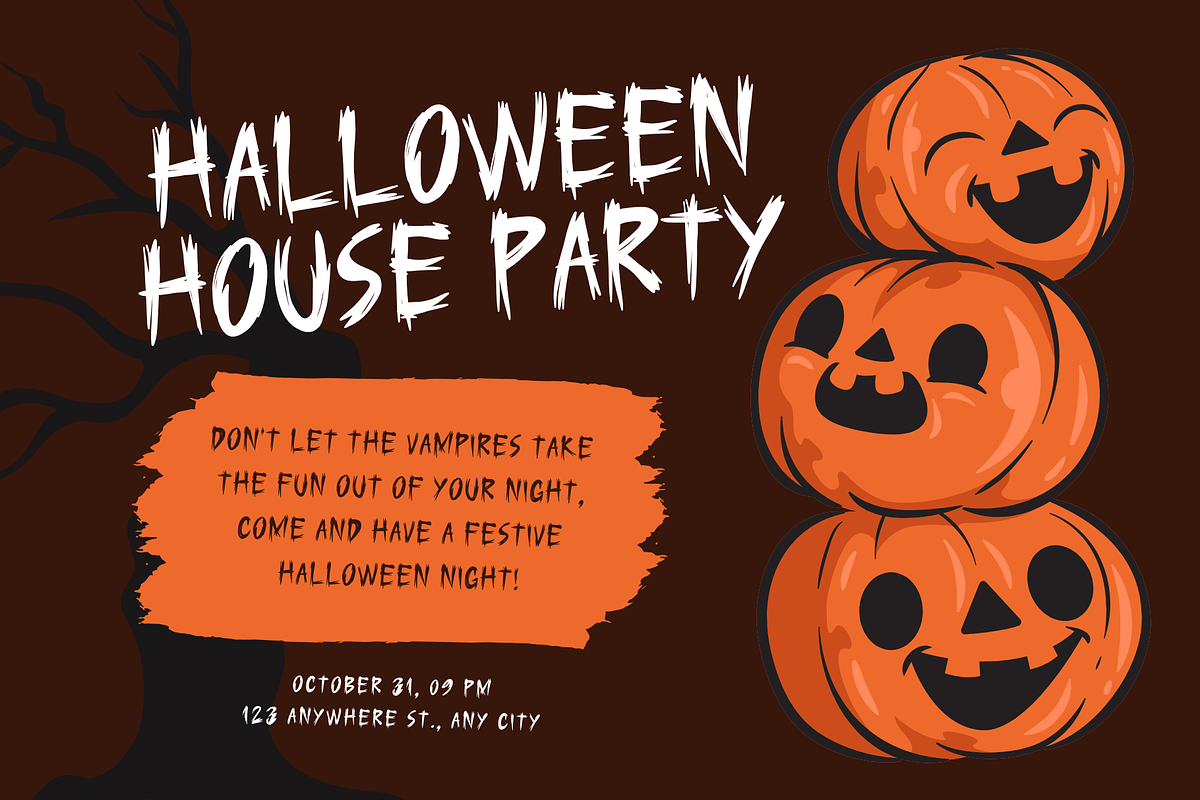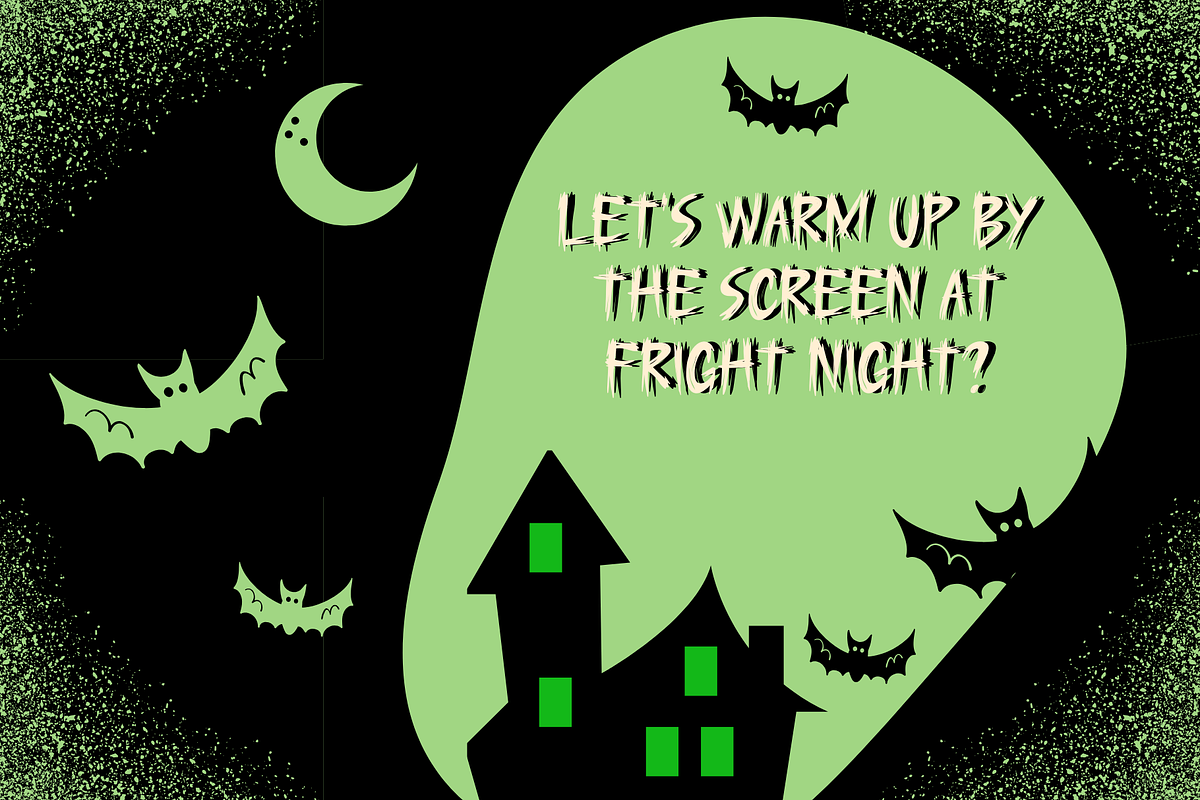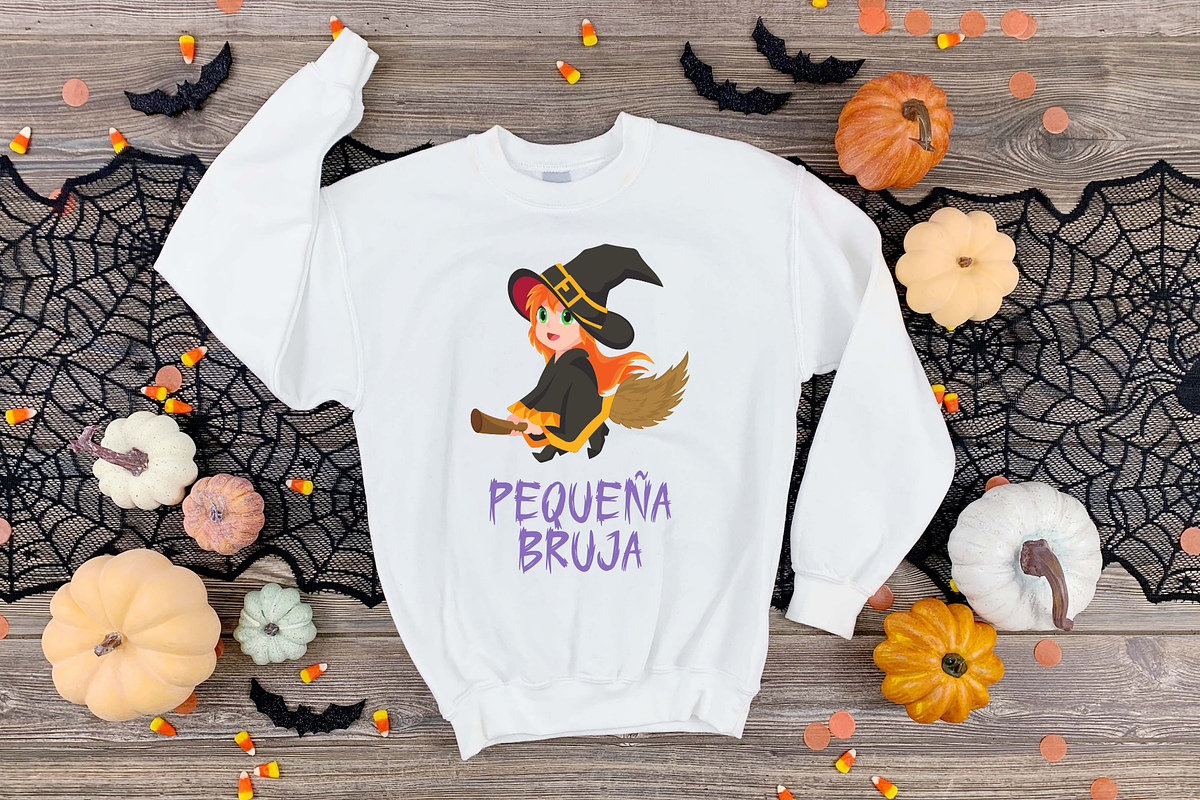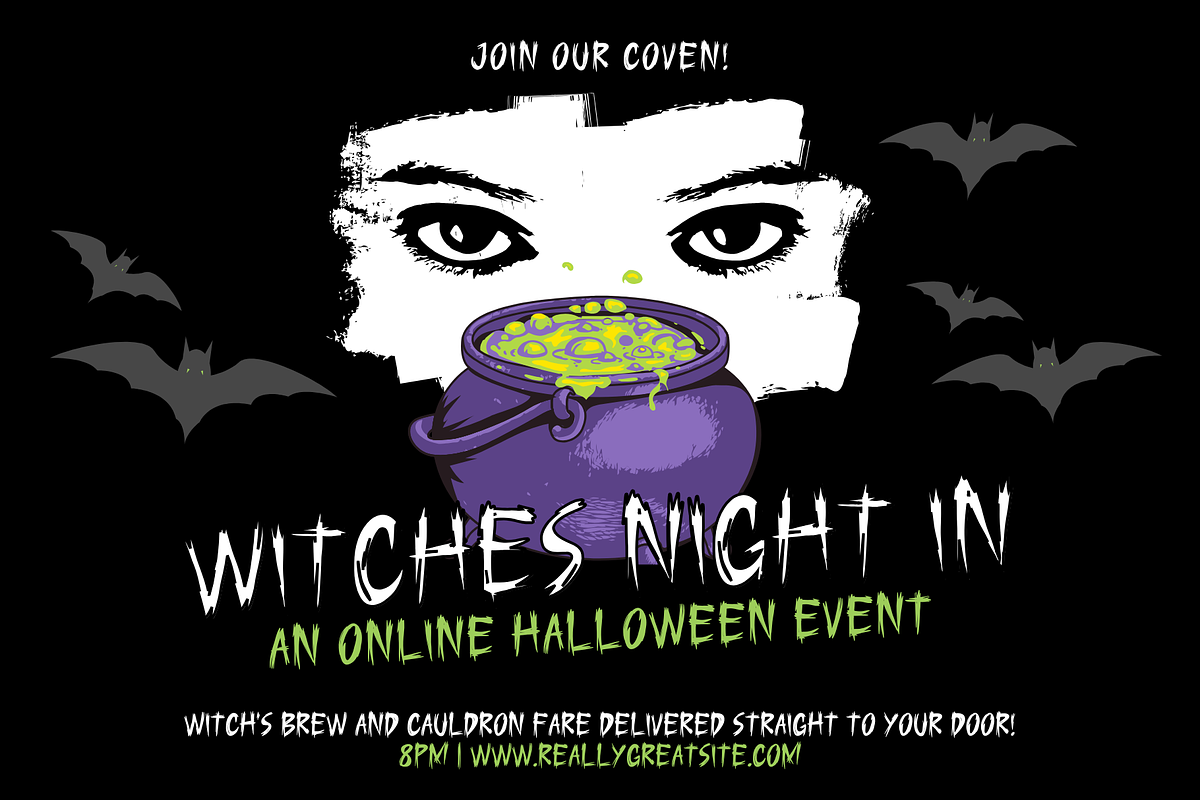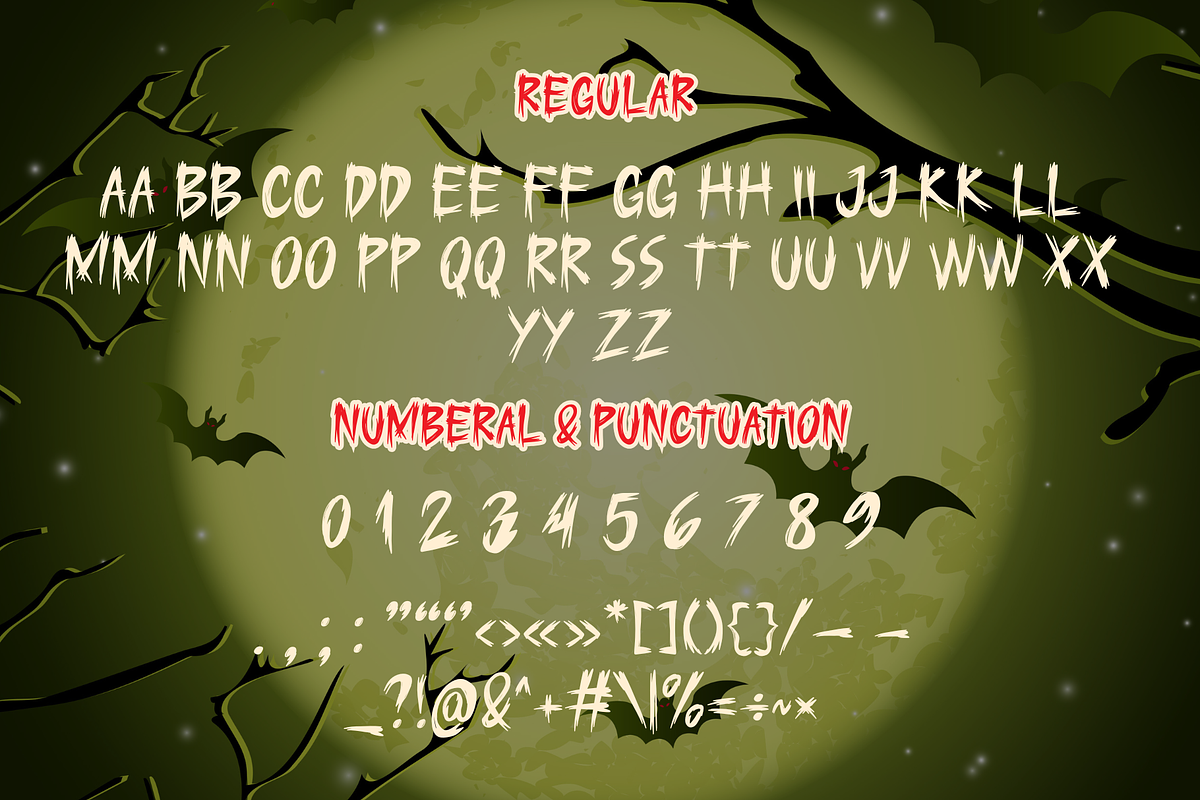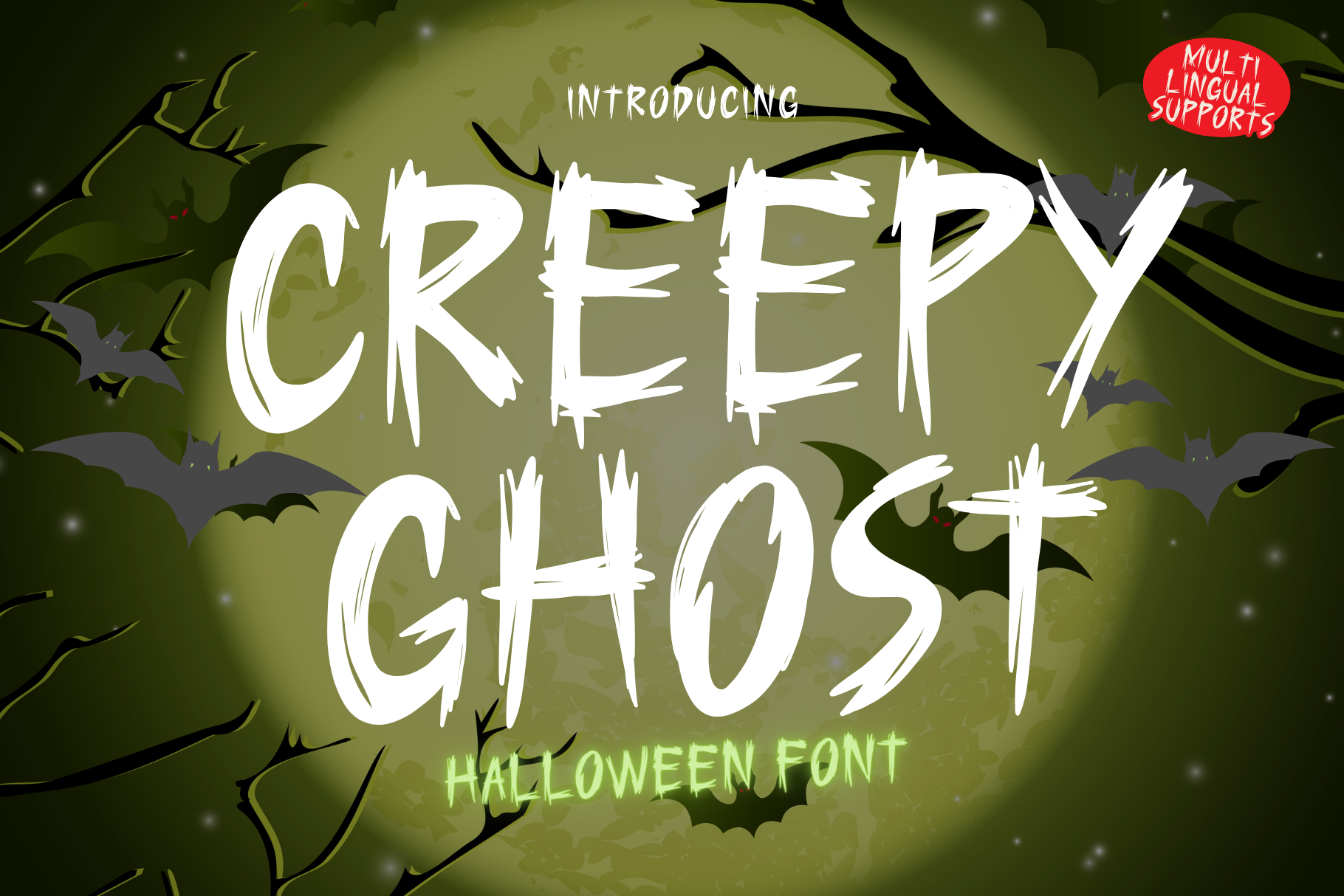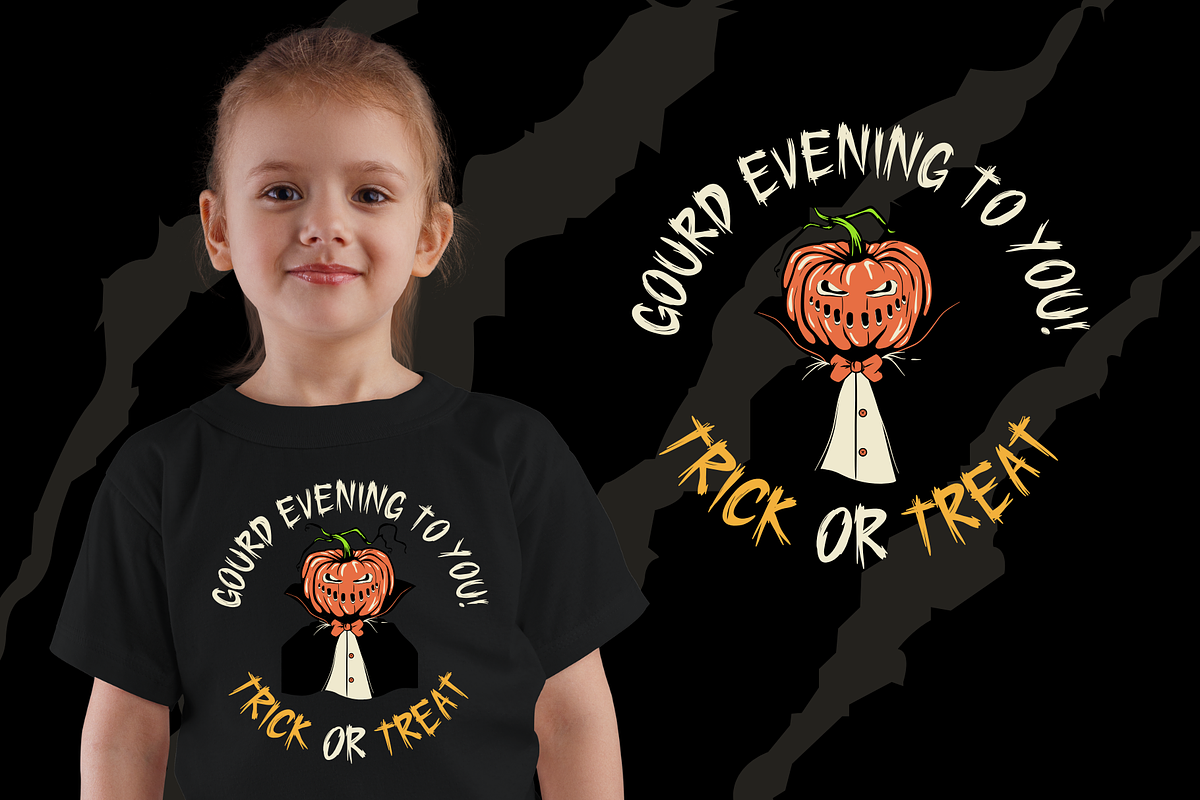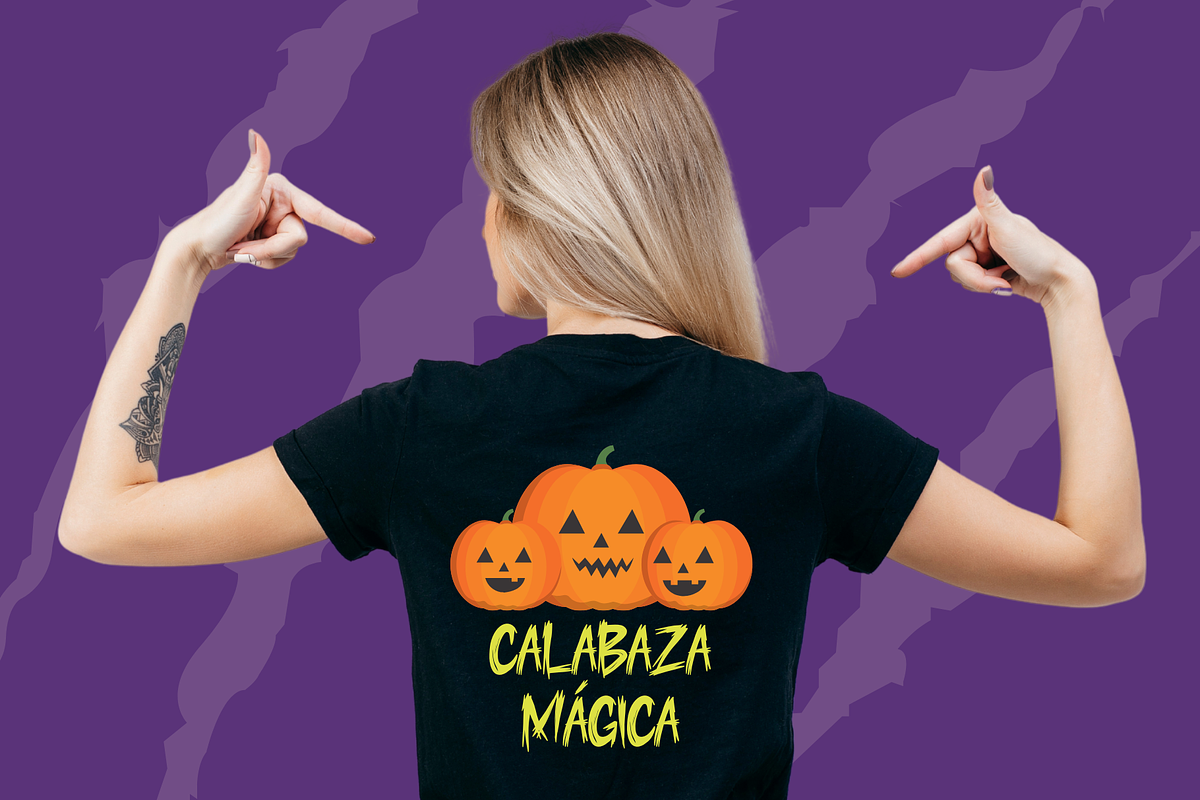
Creepy Ghost is a Halloween font
Creepy Ghost is a Halloween decorative font. It embodies playfulness and authenticity and is the perfect choice for all your favorite projects such as blog posts, logos, branding, ads, invitations, greeting cards, planners, photo albums, decorations, and more. Add it to any of your designs, and enjoy the results!